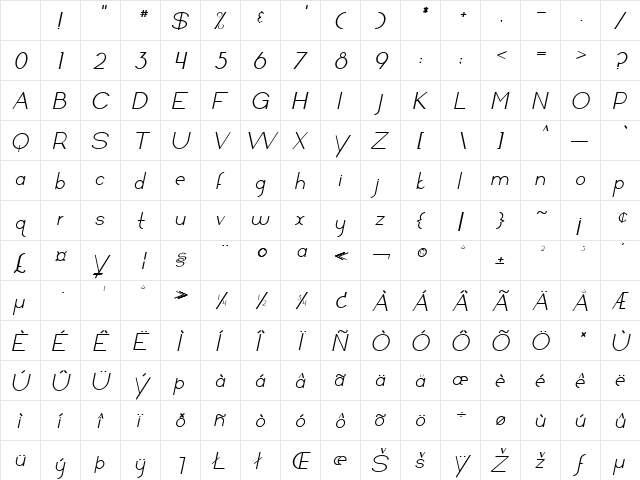
Arrivals and Departures is a composed and adaptable typeface that performs quietly and consistently across a wide range of design contexts. The slanted form adds forward momentum and visual energy.
Pro Tip: Use Arrivals and Departures for emphasis, pull quotes, and subheadings where its slanted energy can add rhythm to the layout.